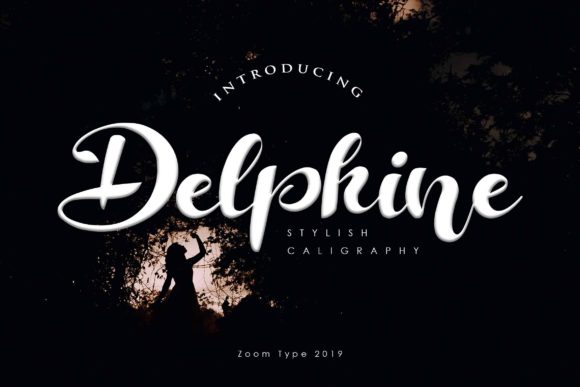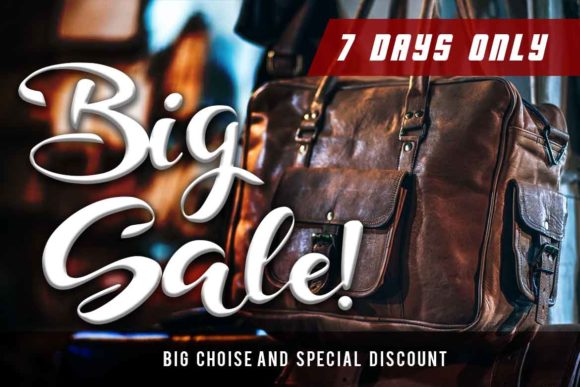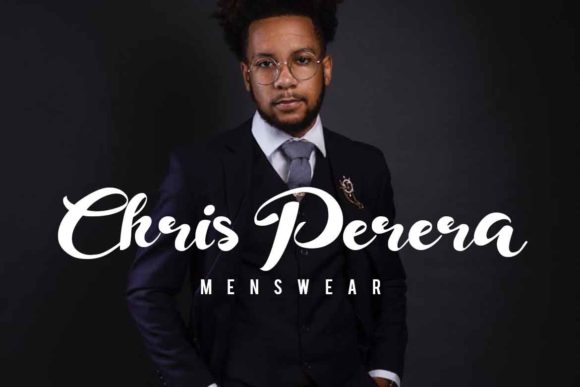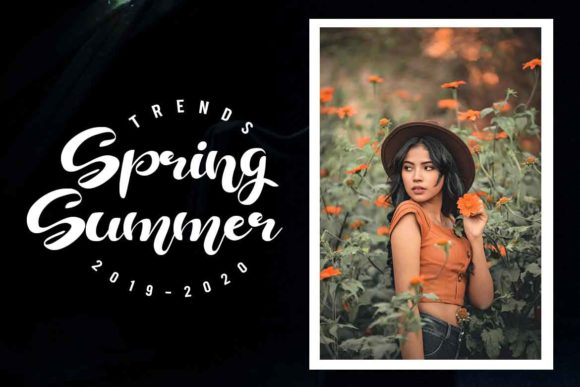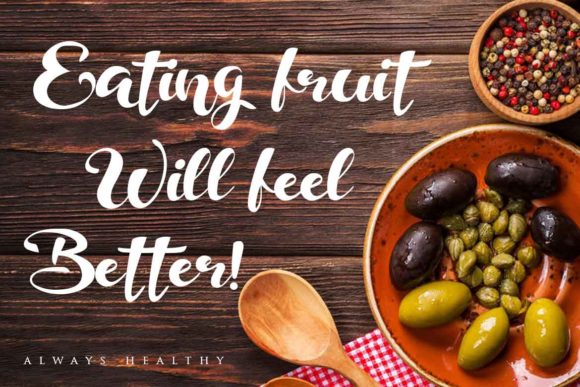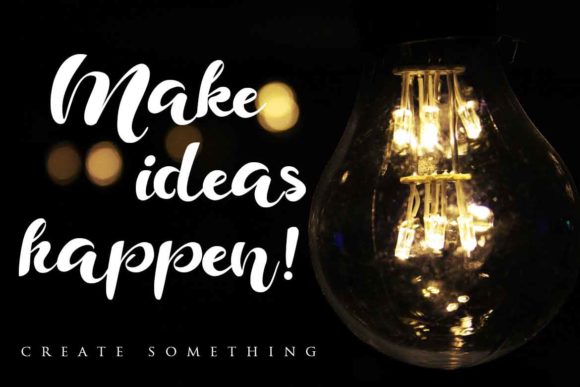
Delphine Font
About Delphine Font
Delphine is a bold script font featuring exciting and unique characters. Make your design stand out from the crowd with this unique typeface!